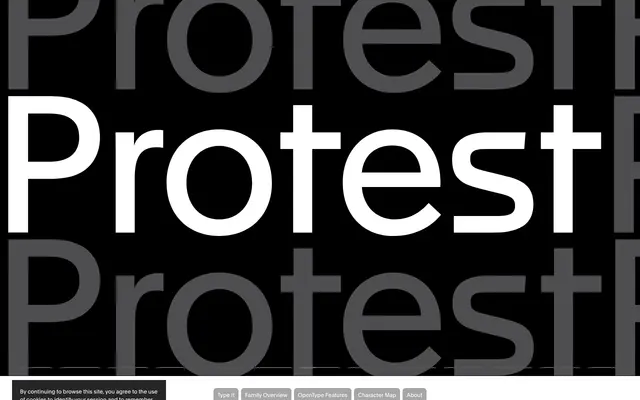
Apax
Optimo · François Rappo · 2016
François Rappo's constructivist grotesque, geometric in architecture but optically tuned for fluent text and identity work.
A grotesque by François Rappo that explores the visual grammar of constructivism through a modernist lens. The geometric architecture produces radical shapes and many distinctive letters, while the optical balance Rappo is known for keeps the family fluent across body texts and visual identities. Six weights from Thin to Superbold come with italics, and each style includes alternate glyphs that let designers tune the constructivist character up or down.
Optimo positions Apax as Rappo's reading of constructivism through a modernist lens, combining a rigorous, systematic geometric architecture with the functional tradition of modern grotesque design.